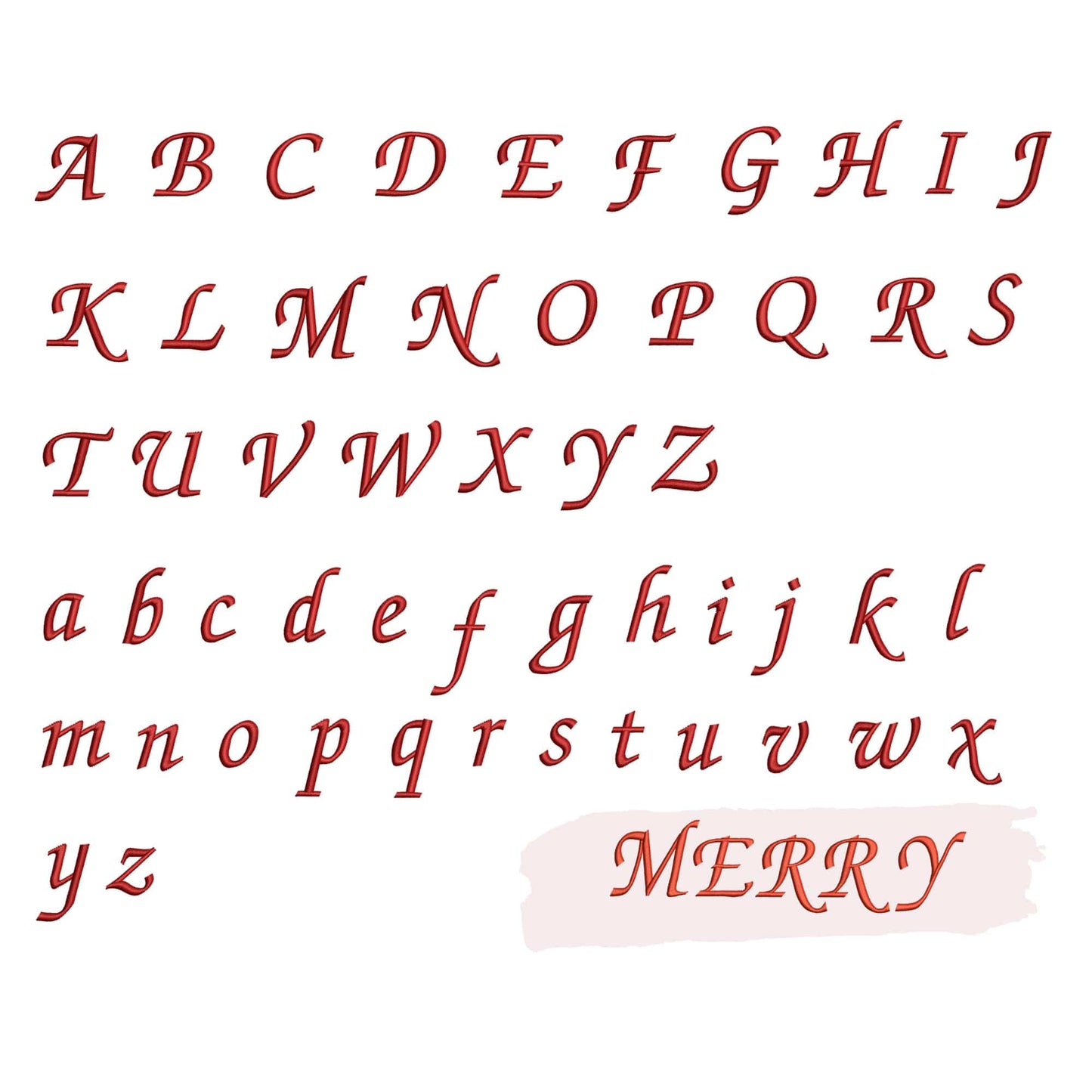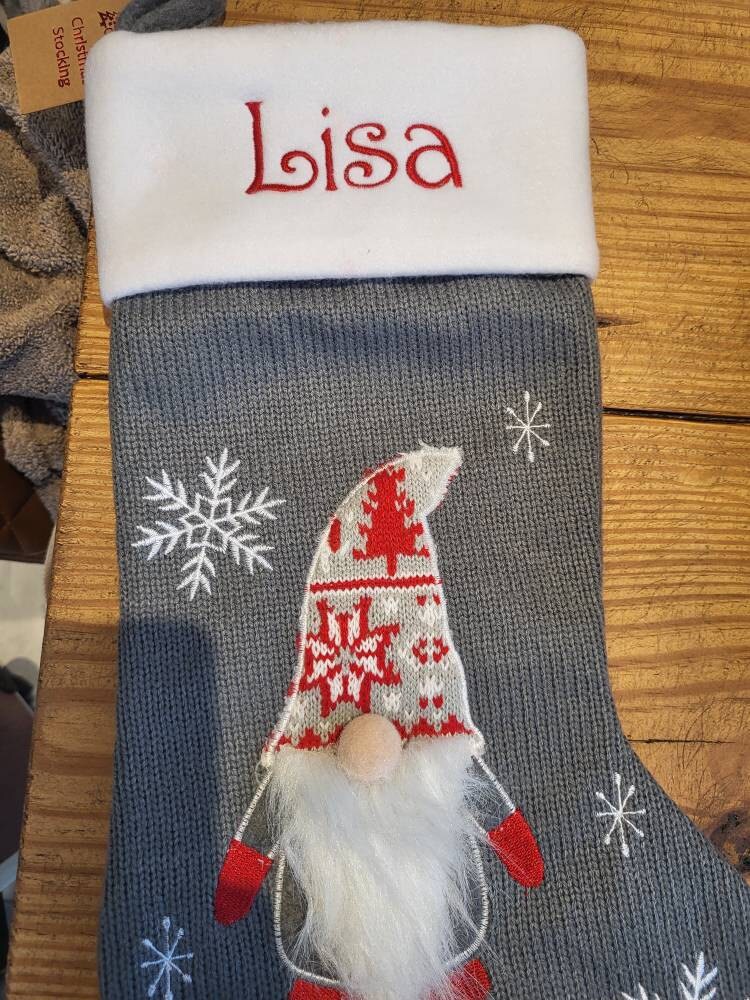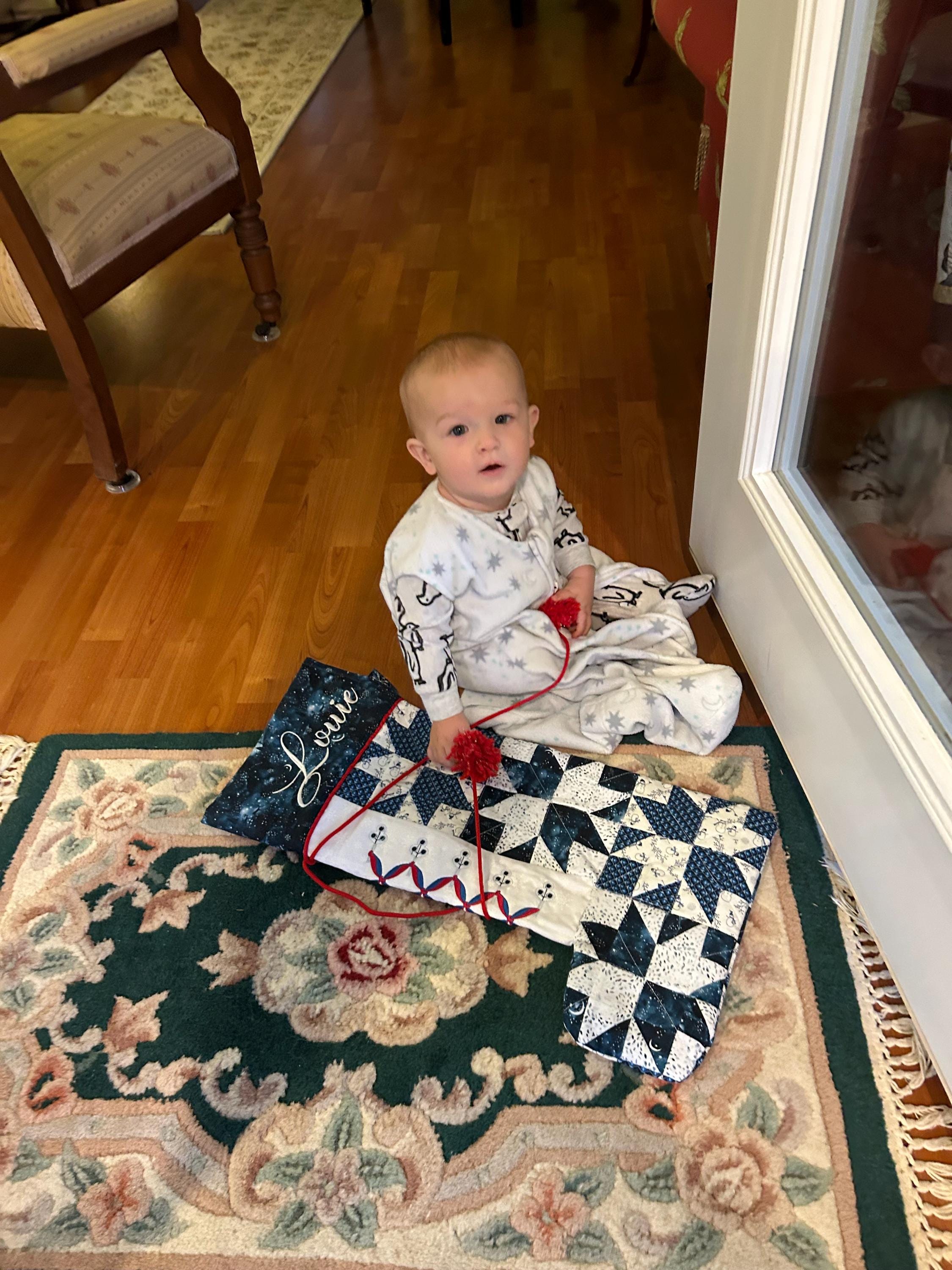
10 Christmas embroidery fonts bundle
1️⃣ Starlight: 4 SIZES - 1.5", 2", 2.5", 3"
2️⃣ Let it Snow: 5 SIZES - 1", 1.5", 2", 2.5", 3"
3️⃣ Stars: 5 SIZES - 1", 1.5", 2", 2.5", 3"
4️⃣ Jingle Bells: 5 SIZES - 1", 1.5", 2", 2.5", 3"
5️⃣ Merry Christmas: 5 SIZES - 1", 1.5", 2", 2.5", 3"
6️⃣ Merry: 6 SIZES - 0.5", 0.75", 1", 1.5", 2", 2.5"
7️⃣ Jolly St Nick: 5 SIZES - 1", 1.5", 2", 2.5", 3"
8️⃣ Holly: 5 SIZES - 1", 1.5", 2", 2.5", 3"
9️⃣ Mrs Claus: 5 SIZES - 1", 1.5", 2", 2.5", 3"
🔟 Santa Express: 5 SIZES - 1", 1.5", 2", 2.5", 3"
This machine embroidery fonts bundle includes 10 Christmas font styles for holiday names, monograms, stockings, sweatshirts, kitchen towels, gift bags, and festive home decor.